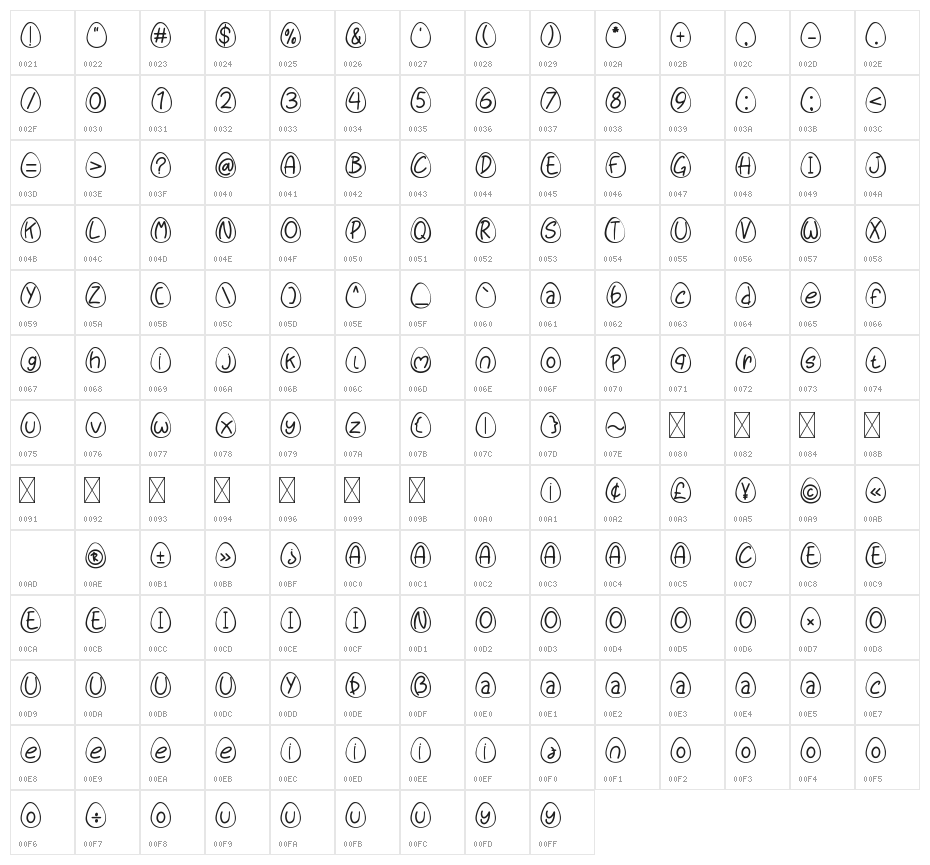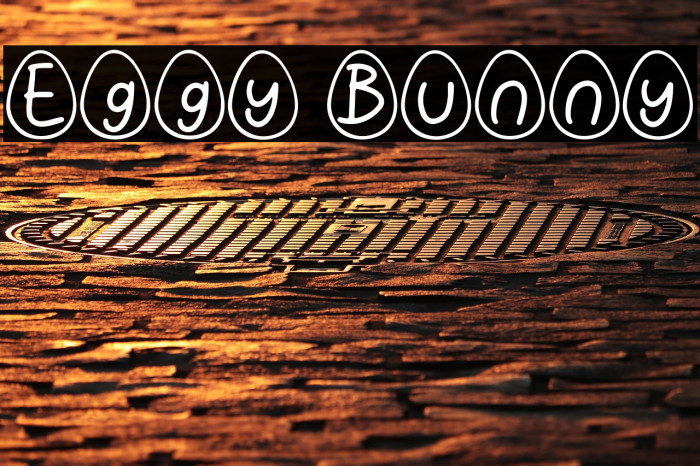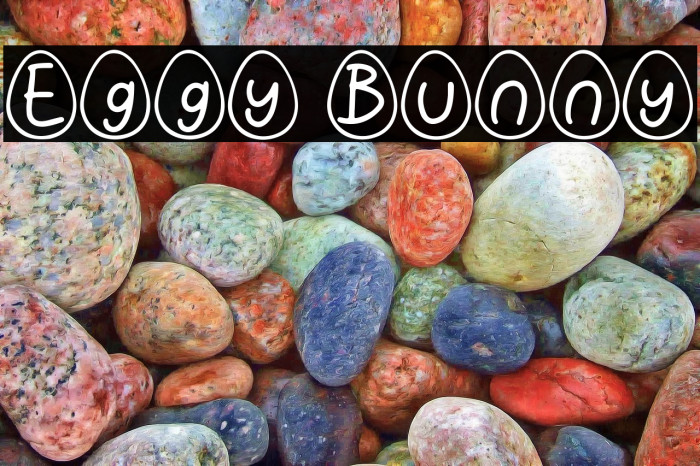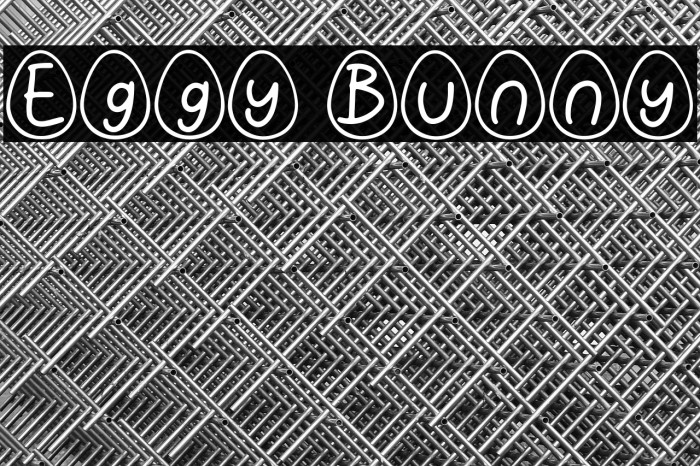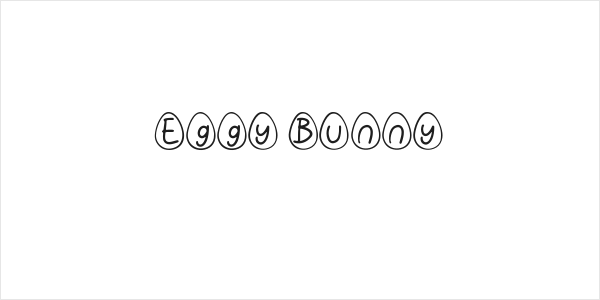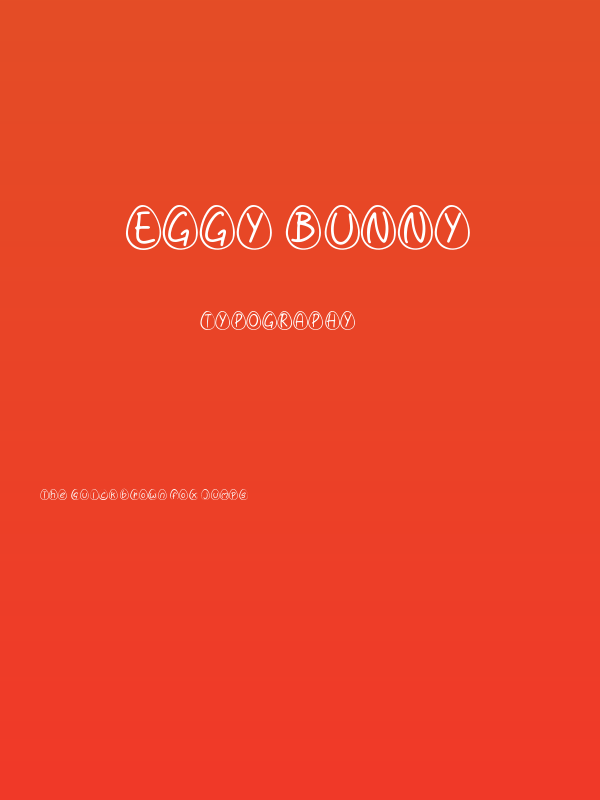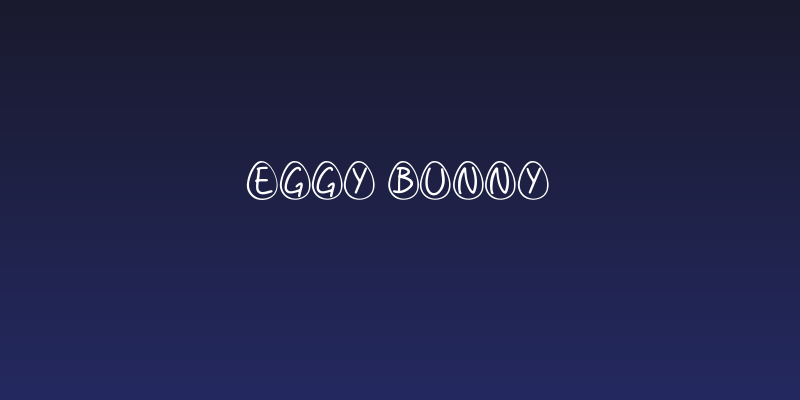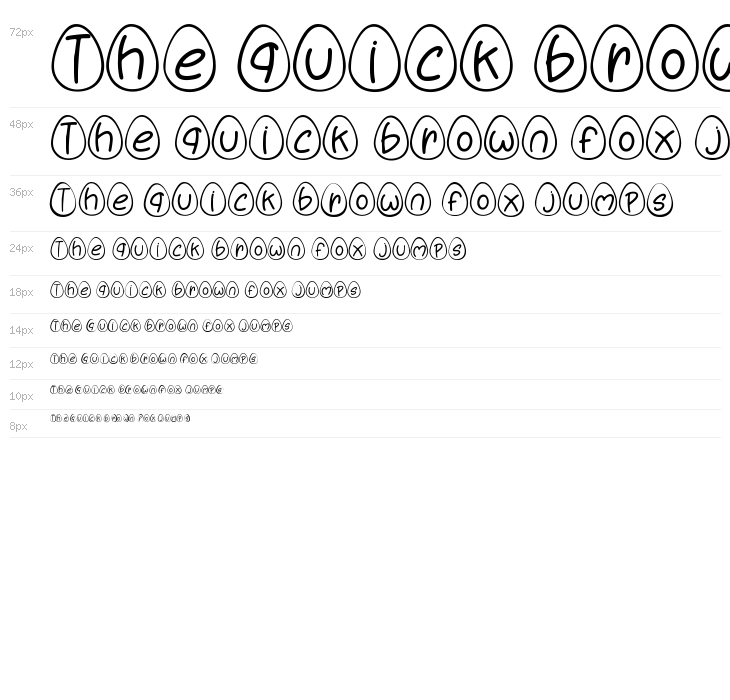
Eggy Bunny Font
Eggy Bunny Description
This playful and whimsical font features characters enclosed in egg-shaped outlines, giving it a unique and quirky appearance. The letters are handwritten with a casual, friendly style, making it ideal for fun and lighthearted projects. The rounded shapes and smooth curves of the letters contribute to its approachable and informal feel. The font includes both uppercase and lowercase letters, numbers, and a variety of special characters, all maintaining the consistent egg motif. Its distinctive design makes it stand out, perfect for projects that require a touch of creativity and humor.
| Overall Style | Whimsical, Playful |
| Proposed Projects | Ideal for children's books, Easter-themed designs, greeting cards, playful branding, and creative posters. |